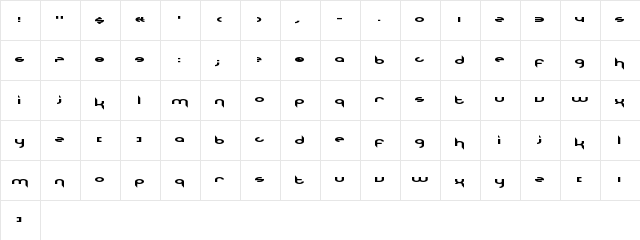
The Nineties Called They Want Their Font Back Regular
| Designer | Andrew McCluskey |
Design Context for The Nineties Called They Want Their Font Back Typeface
The Nineties Called They Want Their Font Back is a composed and adaptable typeface that performs quietly and consistently across a wide range of design contexts.